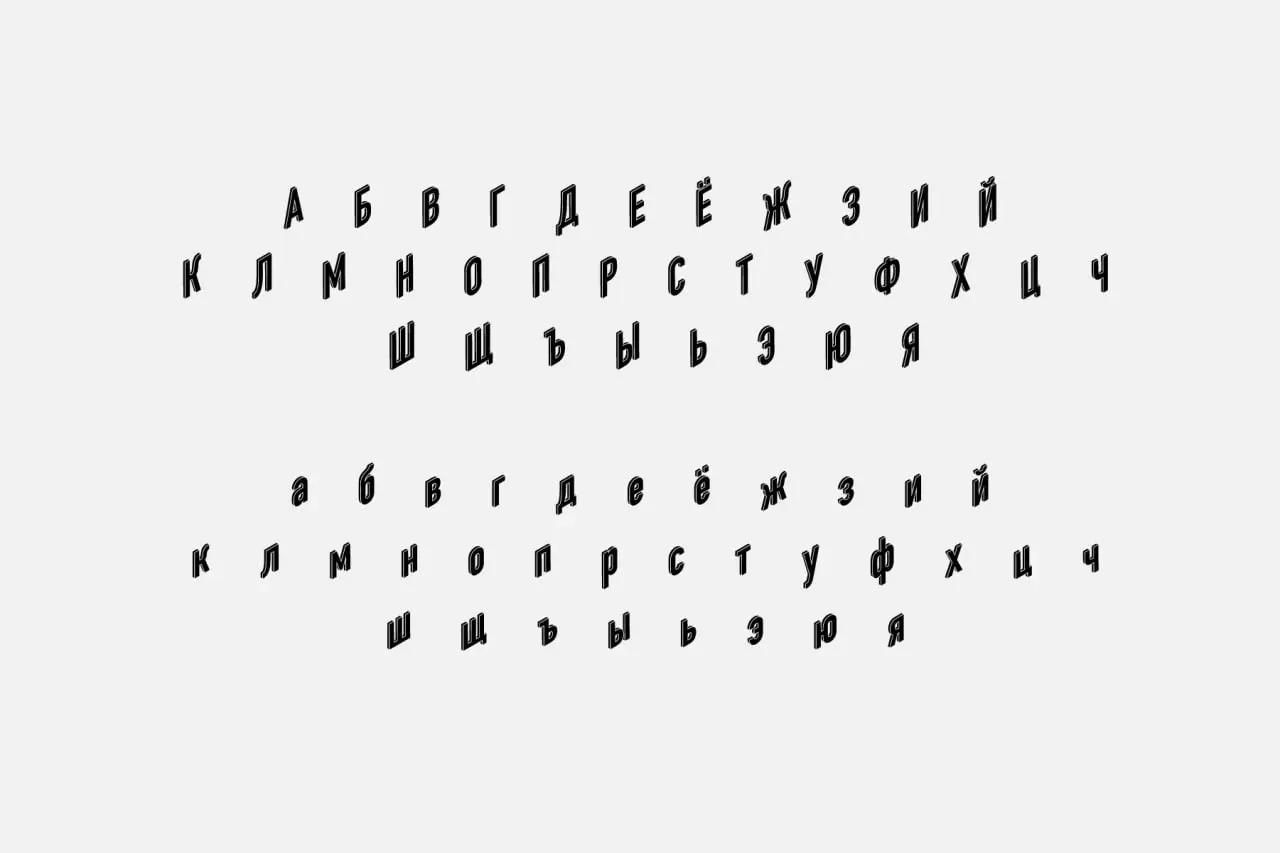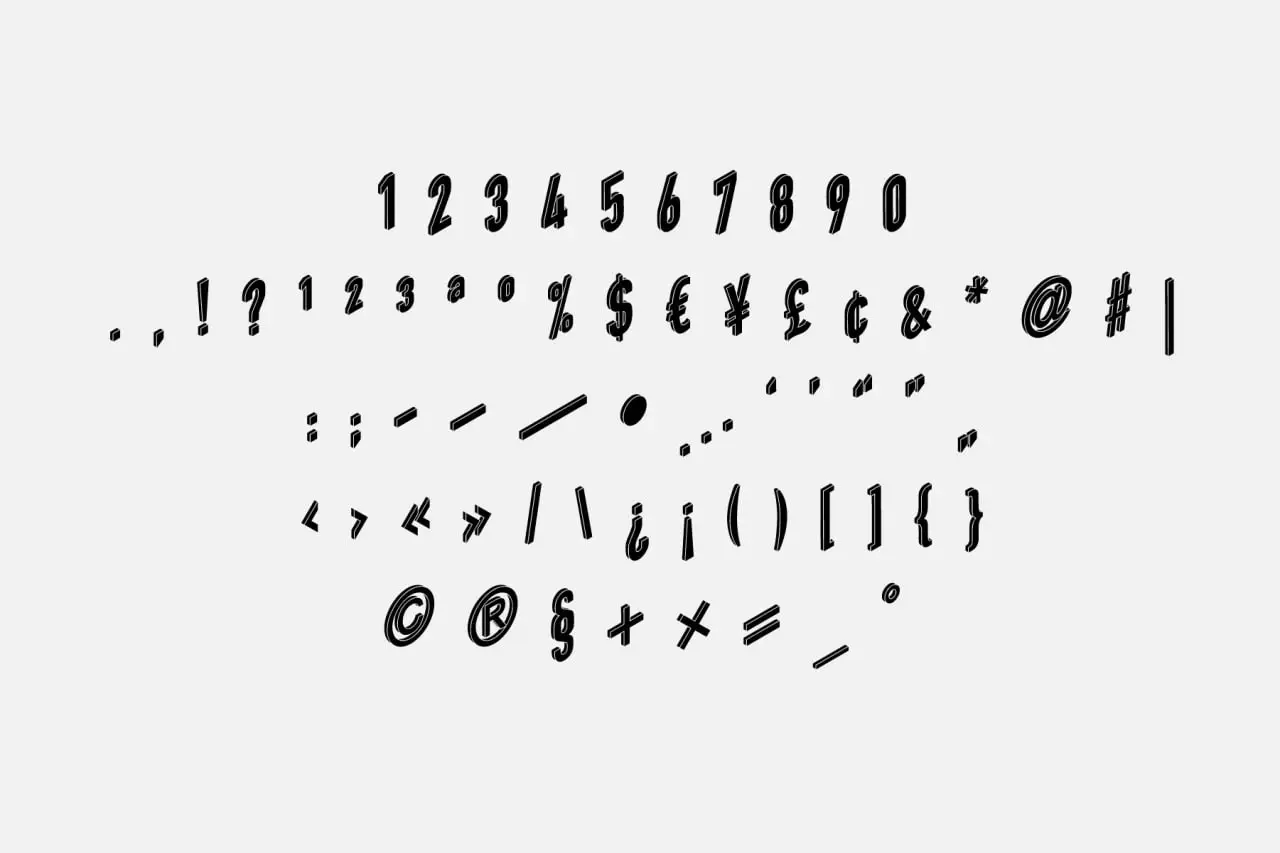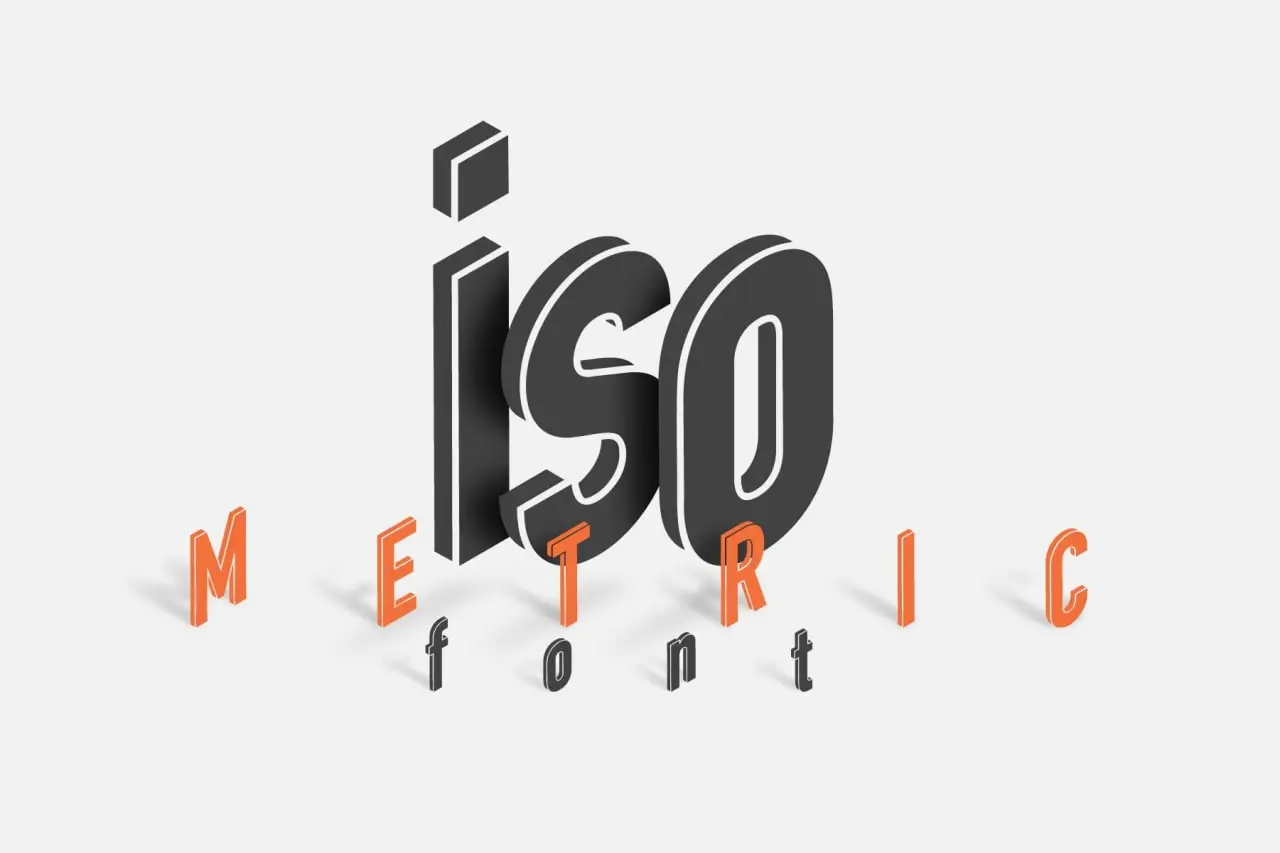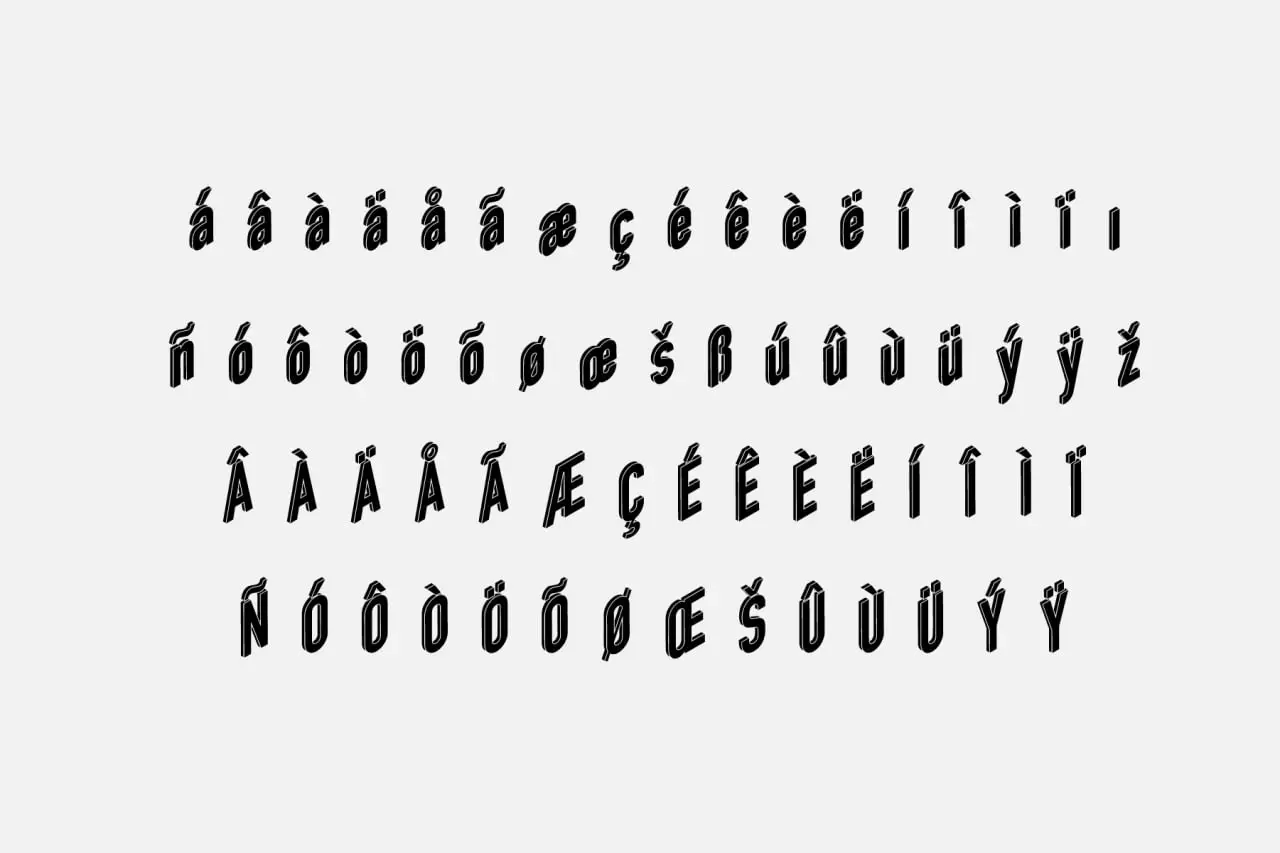
Isometric Font
The Isometric Font is a unique typeface that brings a three-dimensional perspective to your design projects. With its geometric shapes and clean lines, this font is perfect for creating eye-catching visuals that stand out.
• Stylish isometric design
• Supports uppercase and lowercase letters
• Includes numbers and punctuation
• Ideal for web and print applications
• Great for branding, logos, and promotional materials
• Use in UI design for a modern look
• Combine with vibrant colors for maximum impact